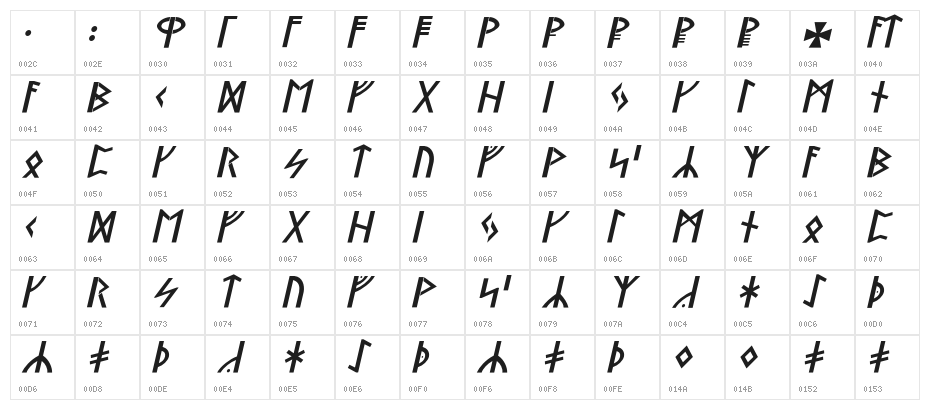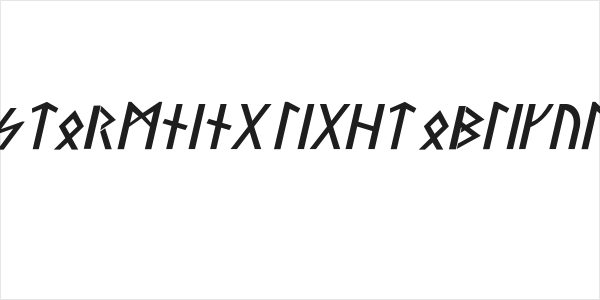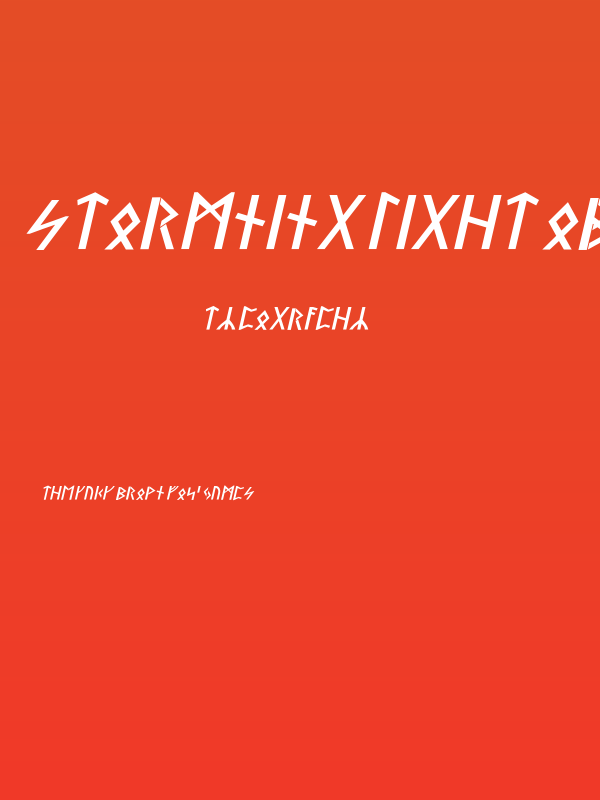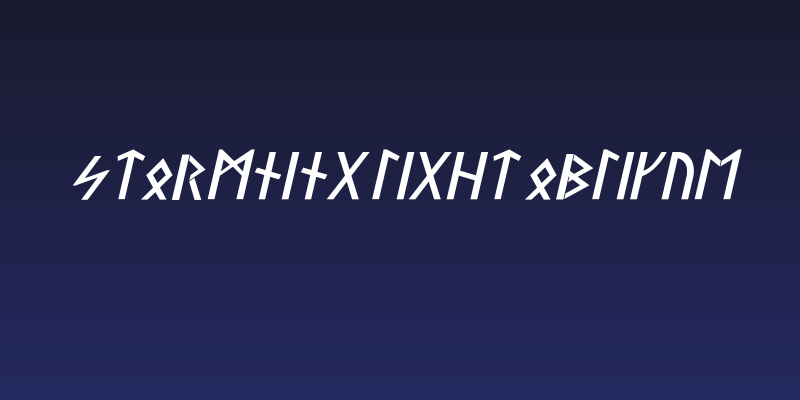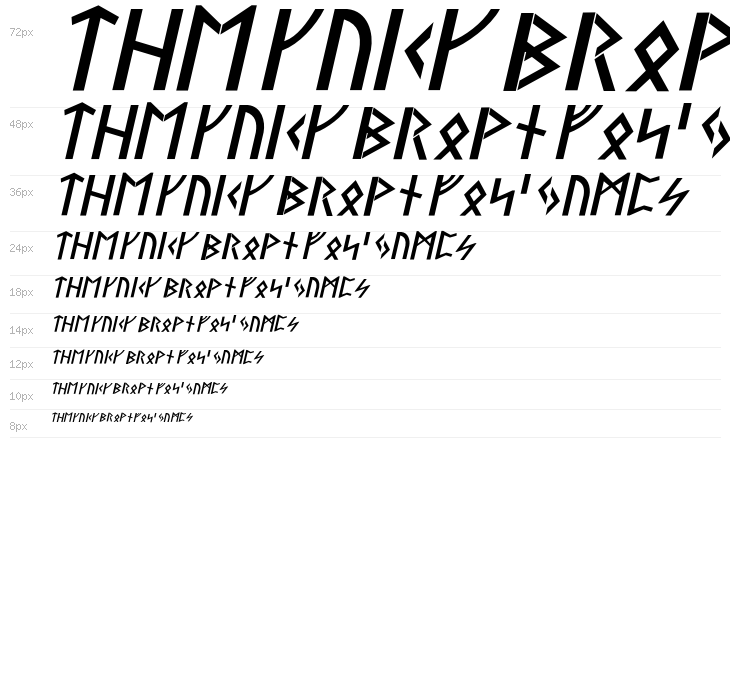
Stormning Light Oblique Font
Stormning Light Oblique Description
This font features a unique, angular design with a futuristic and geometric aesthetic. The characters are composed of sharp, straight lines and acute angles, giving it a dynamic and edgy appearance. The uppercase and lowercase letters maintain a consistent style, with some characters incorporating diagonal strokes that add to the font's oblique nature. The numerals and special characters follow the same design principles, ensuring uniformity across all glyphs. This font's distinctive style makes it stand out, ideal for projects that require a bold and modern look.
Proposed ProjectsIdeal for sci-fi themed designs, video game graphics, posters, and branding that requires a modern and edgy look.